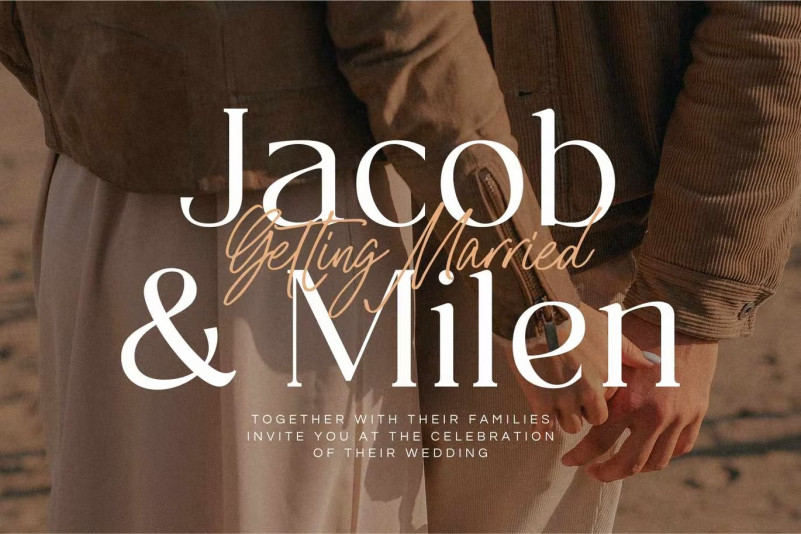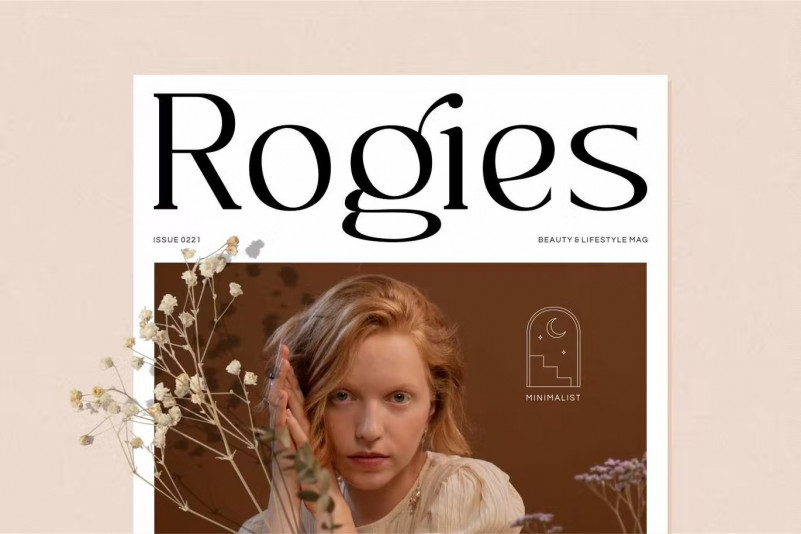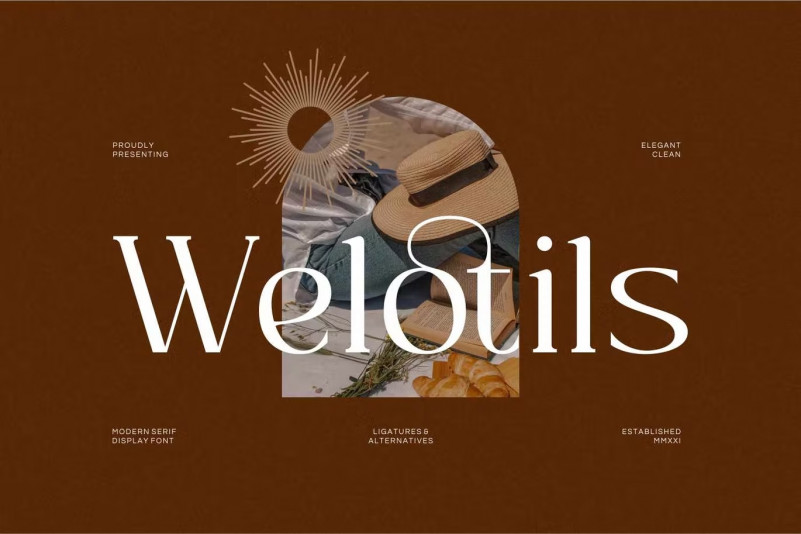
Welotils Font
Runsell’s font product is perfect for many of your projects such as logos and branding, photography, invitations, watermarks, advertisements, product designs, stationery, wedding designs, labels, packaging products, special events and more.